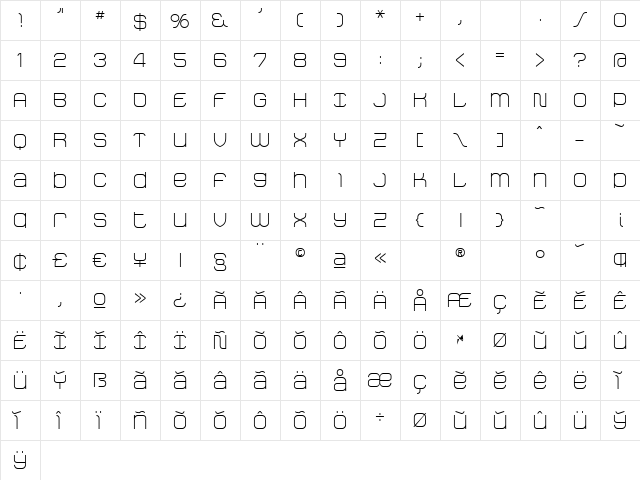
StakLight Regular Font Preview
StakLight Regular
StakLight Regular Font Details
Design Context for StakLight Typeface
StakLight takes a measured approach to typography — its balanced proportions and neutral character make it a reliable workhorse for both digital and print work. Its slender proportions lend an understated elegance to any composition.